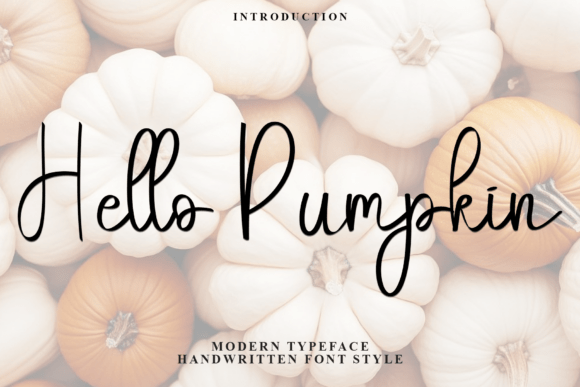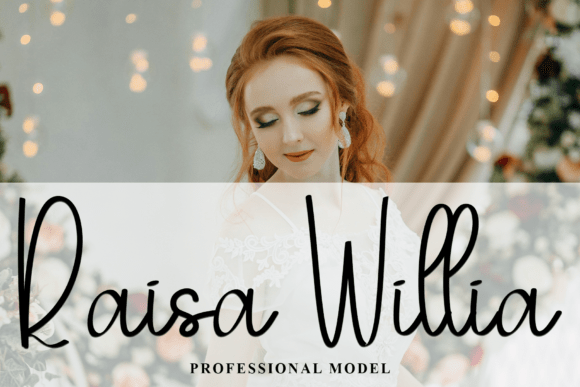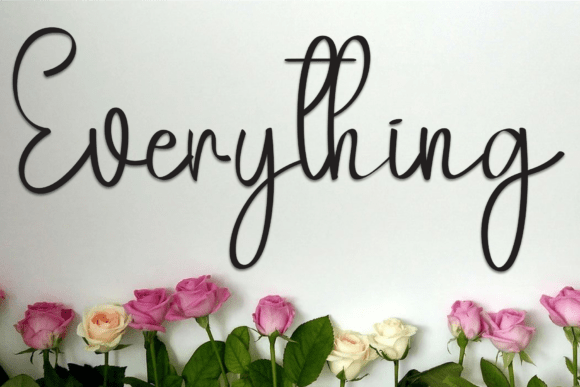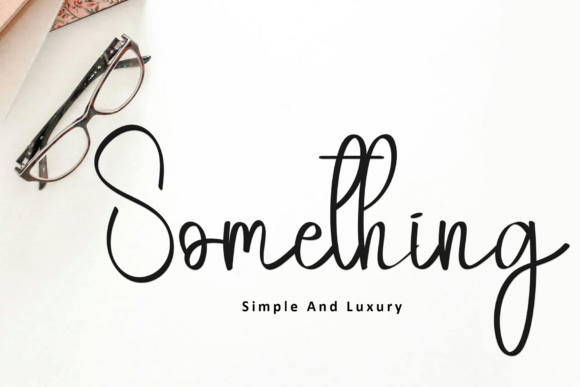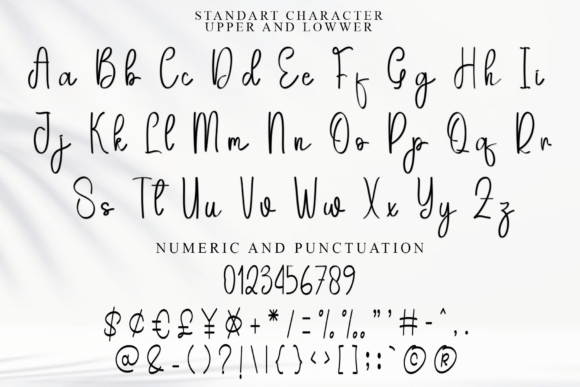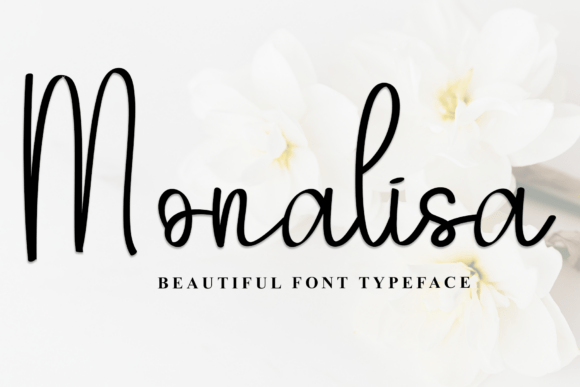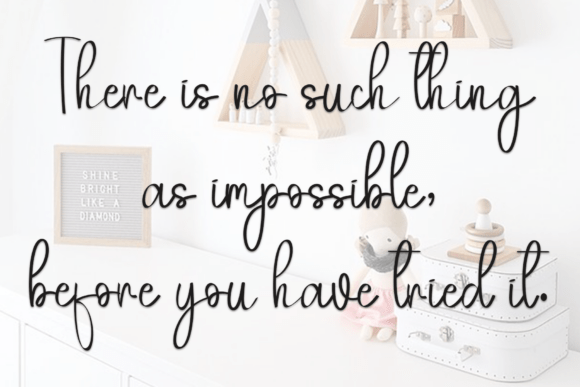
The Perfect Touch of Whimsy: Discover the Hello Pumpkin Font
Have you ever stumbled upon a font that instantly sparks creativity and sets your imagination free? For designers, it’s a moment of pure joy – the moment when the perfect font comes along and elevates their project to the next level. This is exactly what happens when you discover the Hello Pumpkin Font, a beautiful and eye-catching typeface designed with a soft, unique touch.
The Hello Pumpkin Font is a versatile and meaningful design element, perfect for a wide range of projects, from crafts to design work. Its distinctive strokes give it a special character that sets it apart from other fonts, making it a valuable addition to any designer’s toolkit. With its compatibility with various applications, including Windows and open-source platforms, this natural font style is ideal for designers who want to add a touch of whimsy to their creations.
Hello Pumpkin Font Key Features
- Unique Characteristics: The font features a unique, hand-drawn design with intricate details and textures, giving it a warm and inviting feel.
- Style Options: Hello Pumpkin Font comes in three styles: Regular, Bold, and Italic, providing users with a range of options to suit their design needs.
Hello Pumpkin Font Review
I recently had the chance to work with the Hello Pumpkin Font, and I must say, it’s a unique and interesting addition to any design project. ✨ The font’s playful, handwritten feel is perfect for adding a touch of warmth and personality to your designs.
- ✨ Unique, hand-drawn feel that sets it apart from more generic fonts.
- ✨ Excellent for creating a sense of whimsy and playfulness in your designs.
- ✨ Supports a wide range of languages, making it a great option for international projects.
- ⚠️ Limited font sizes may not be suitable for larger text blocks.
- ⚠️ Some letters may not be as legible at smaller sizes.
Overall, I think the Hello Pumpkin Font is a great choice for designers looking to add some personality to their projects. While it may not be the most versatile font, its unique feel and wide language support make it a valuable addition to any design library.
Tips for Getting the Most Out of Hello Pumpkin Font
Use Hello Pumpkin Font for autumn-themed designs, such as invitations, greeting cards, and social media graphics.
Experiment with different font sizes and styles to create a unique and eye-catching design.
Pair Hello Pumpkin Font with other autumn-themed elements, such as leaves, pumpkins, and acorns, to create a cohesive design.
Hello Pumpkin Font is perfect for:
Autumn-themed designs
Invitations and greeting cards
Social media graphics
Holiday-themed designs
Alternatives to Hello Pumpkin Font
Great Vibes is a modern calligraphy font that is perfect for creating a whimsical and elegant look. It’s ideal for designing invitation cards, wedding stationery, and other special occasion materials. Great Vibes is more refined and sophisticated compared to Hello Pumpkin Font, making it a better choice for more formal events.
Pacifico is a beautiful, elegant script font that is reminiscent of handwritten letters. It’s perfect for creating a warm and inviting atmosphere, making it ideal for designing menus, logos, and branding materials. Pacifico is more polished and refined compared to Hello Pumpkin Font, but it still maintains a touch of personality and playfulness.
Crimson Text is a serif font that is perfect for creating a classic and sophisticated look. It’s ideal for designing books, magazines, and other print materials where a professional and elegant look is required. Crimson Text is more formal and structured compared to Hello Pumpkin Font, making it a better choice for more formal and professional projects.